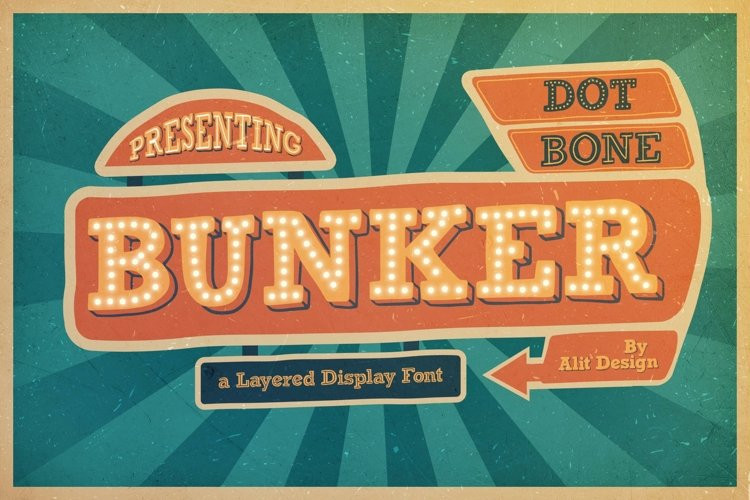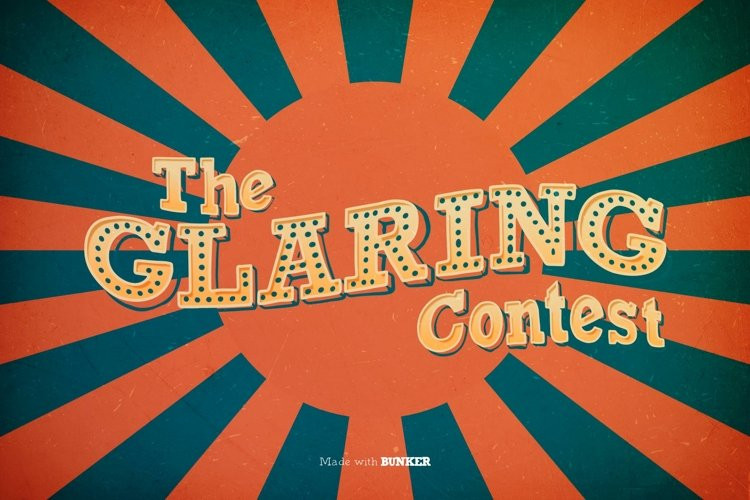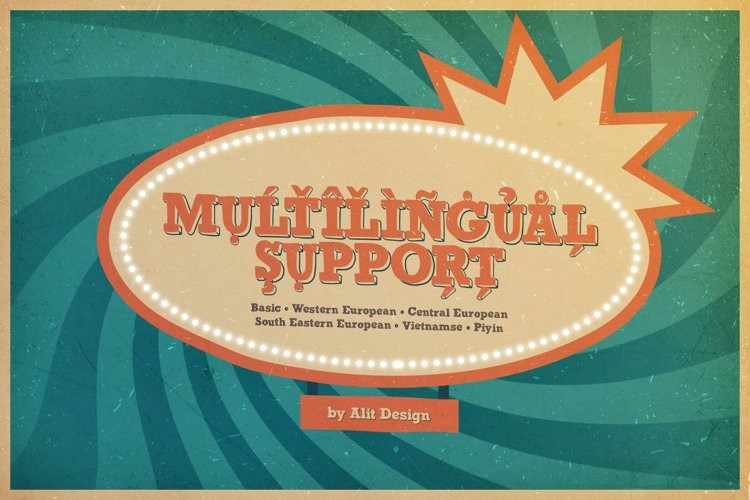
Bunker Font
The Bunker Typeface is inspired by the glamorous and cool nightlife in big cities. Designed with a retro sign concept, this font looks different and cool to use for making neon retro lettering designs. classic slab serif like “Bunker Typeface” are very easy to apply to any design, especially those with an retro and sign concept, apart from that this font is very easy to use in both design and non-design programs because all alternates and glyphs are supported by Unicode (PUA).